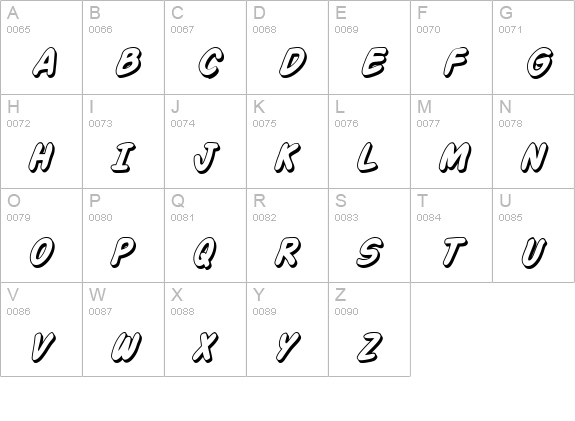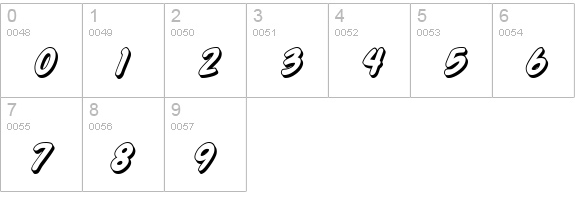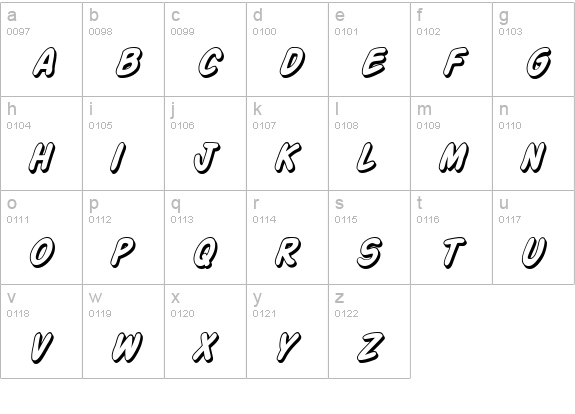
Action Man Shaded Italic Font Details
Action Man Shaded Italic is a distinctive, italic variant in the Action typeface family \xE2\x80\x94 well suited to design and typography projects.
Action Man Shaded Italic is a bold and dynamic font that exudes a sense of energy and excitement. With its slanted and shaded design, this font is perfect for creating eye-catching headlines, posters, and advertisements. The italicized style adds a touch of sophistication and modernity to any design project. What's more, Action Man Shaded Italic is available for free download at FontsMarket.com. Whether you're a designer looking to add a touch of flair to your creations or a business owner seeking a standout font for your branding, this versatile typeface is sure to make a lasting impression. Don't miss out on the opportunity to enhance your designs with this striking and unique font - download Action Man Shaded Italic today and let your creativity soar!